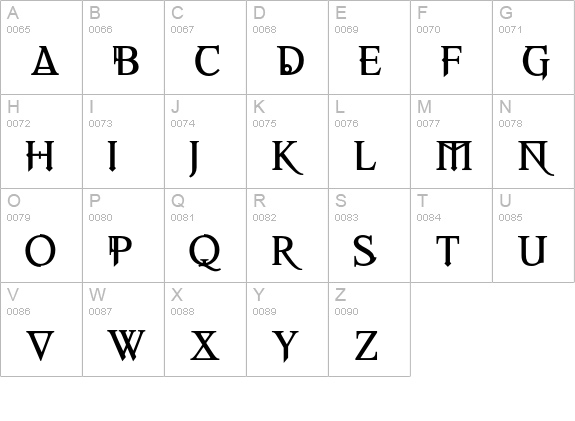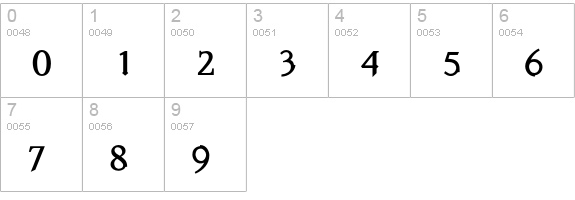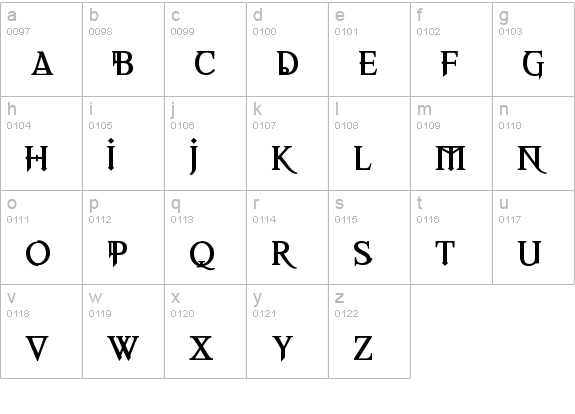
REQUIEM-DIESIRAE11 Font Details
Introducing REQUIEM-DIESIRAE11 font, an exquisite blend of elegance and modernity that is sure to captivate any design project with its unique and striking appearance. This font is the perfect choice for those seeking a touch of sophistication combined with a contemporary edge. REQUIEM-DIESIRAE11 font boasts clean lines and sleek curves that create a harmonious balance, making it suitable for a wide range of applications. Whether you're designing a logo, crafting a headline, or creating a stunning poster, this font will effortlessly elevate your work to new heights. What sets REQUIEM-DIESIRAE11 font apart is not only its stunning aesthetics but also its versatility. With a variety of weights and styles available, you have the freedom to experiment and find the perfect combination that suits your creative vision. From bold and impactful to delicate and refined, this font has it all. And the best part? REQUIEM-DIESIRAE11 font is freely available to download at FontsMarket.com. That's right, you can enhance your designs with this exceptional font without spending a dime. It's time to unleash your creativity and explore the endless possibilities that await you with this remarkable typeface. So why wait? Don't miss out on the opportunity to add a touch of sophistication and modernity to your designs with the freely accessible REQUIEM-DIESIRAE11 font. Download it today at FontsMarket.com and let your creativity soar to new heights.